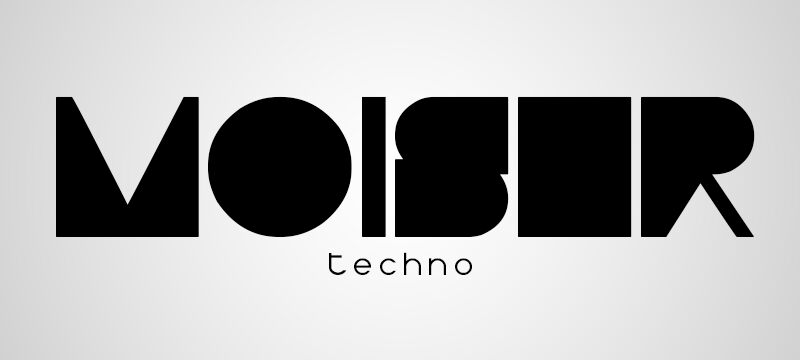
Moiser Techno by Carlos Matteoli, also known as Qbotype, is a free geometric techno display font with massive, tightly constructed capitals. Its broad shapes switch between hard diagonals and near-perfect circles, with sharp triangular cutouts breaking into the strokes. The result feels architectural and machine-made.
It can turn a logo or title card into an emblem, since the lettering reads as solid graphic shapes as much as text. That quality suits electronic music artwork, gaming graphics, and branding for technology products. The abrupt notches and oversized curves tie these uses to a sleek science-fiction setting.